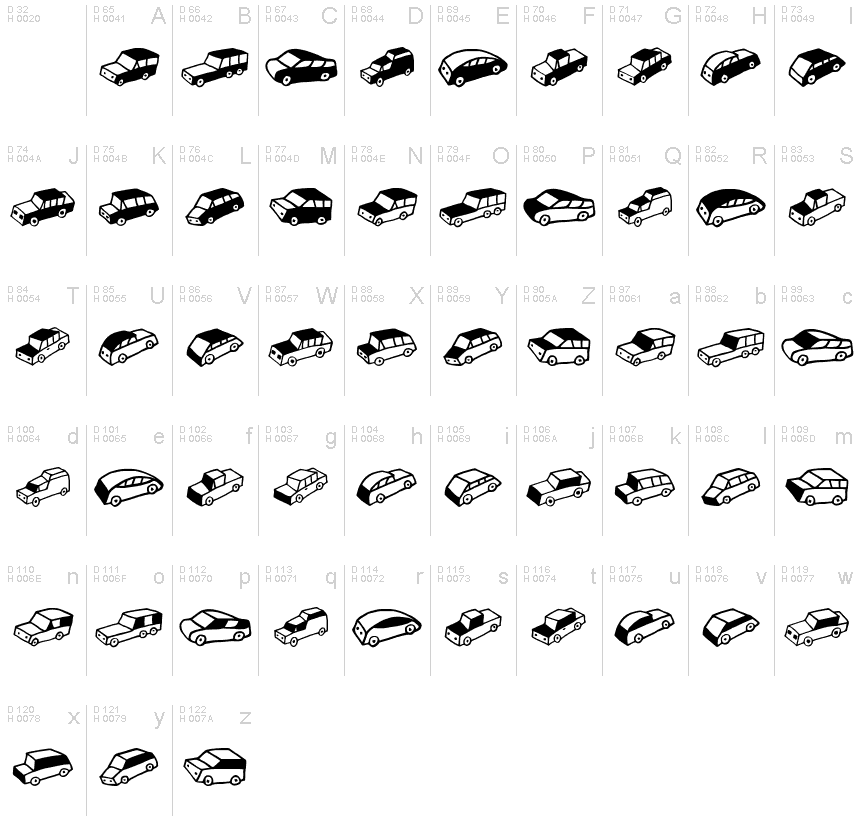
Automobiles Regular
Automobiles, a striking dingbats font designed by Vladimir Nikolic, perfectly captures the essence of cars. Its sleek and stylish glyphs depict various automobile symbols, making it an ideal choice for automotive branding projects. This versatile font can be used in logo designs, advertisements, and car-related websites. The bold and iconic visuals of Automobiles will rev up any project with a touch of elegance and sophistication. Let this unique typeface take your automotive-themed designs to new heights, ensuring that your brand stands out on the road to success.